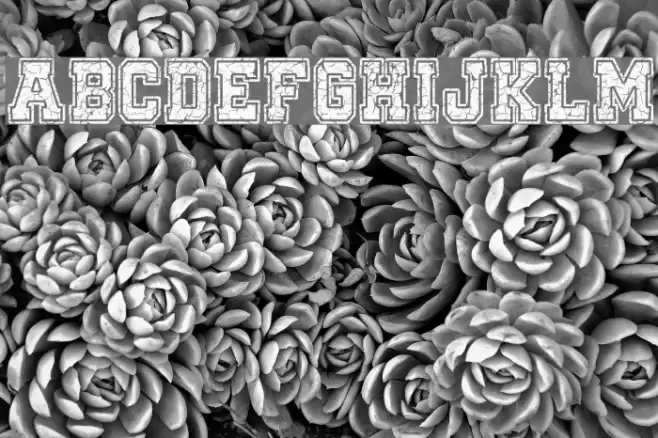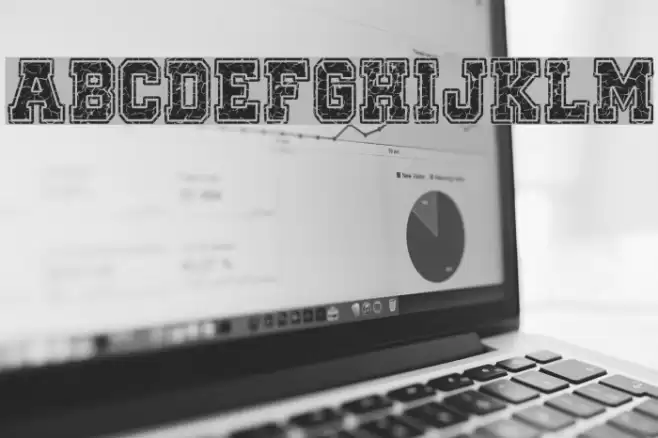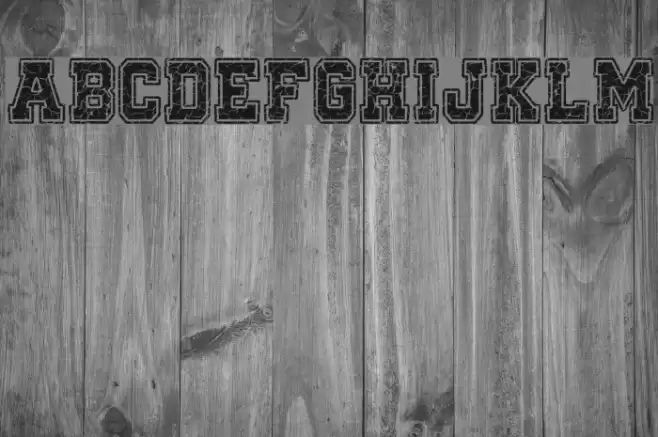
Only The Strong Font
Only The Strong Description
This font features a bold, rugged design with a distressed texture that gives it a strong, impactful appearance. The uppercase letters are prominent and commanding, making them ideal for attention-grabbing headlines or titles. The numbers share the same bold style, ensuring consistency across different types of content. The font's distressed look adds a vintage or grunge feel, making it suitable for projects that require a tough, gritty aesthetic. The characters are well-defined with a uniform width, contributing to a cohesive and balanced look.
A bold, distressed font with a rugged, vintage aesthetic from Uncategorized fonts.
- Proposed Projects: Ideal for posters, logos, sports team branding, and any design needing a strong, vintage look.
- Overall Style: Vintage